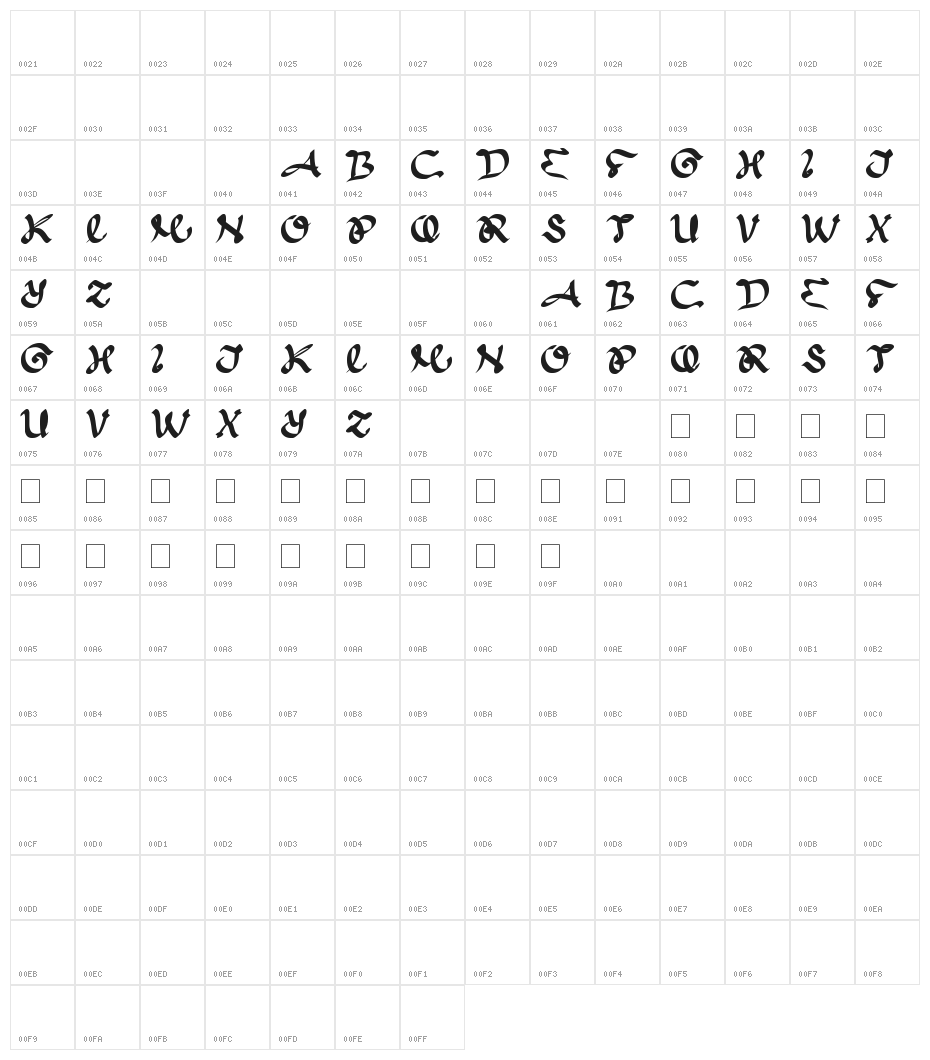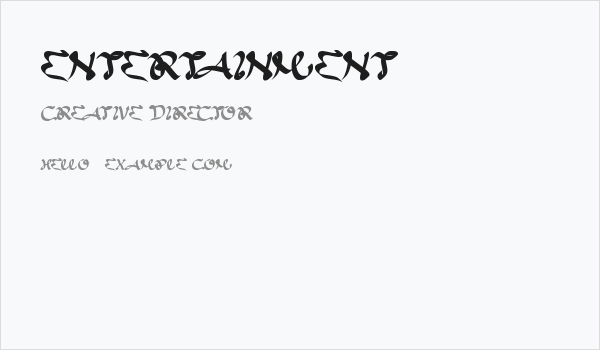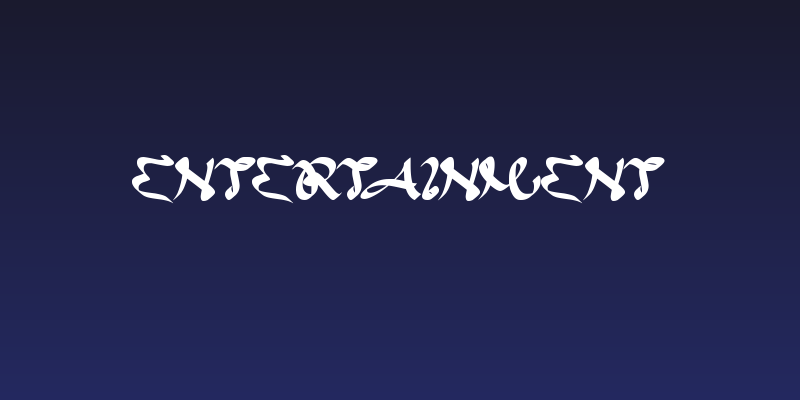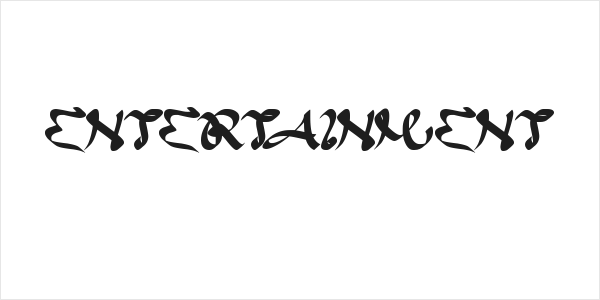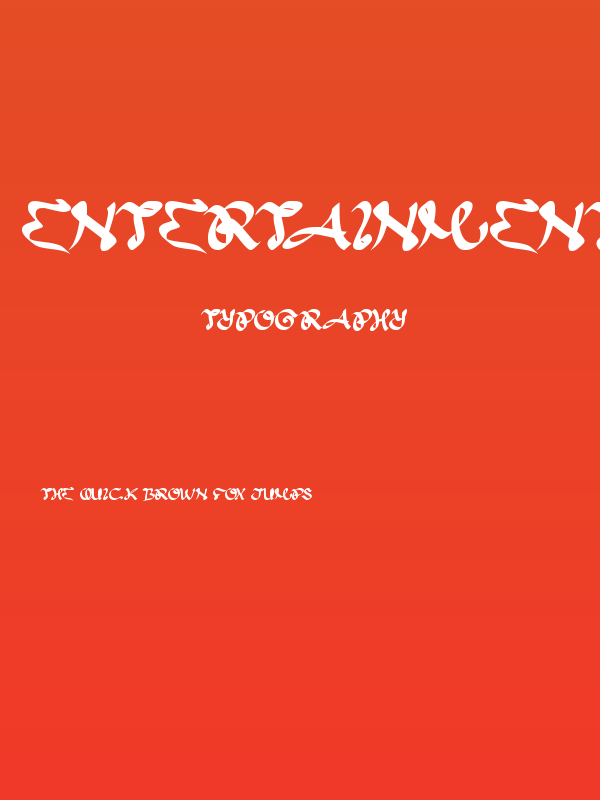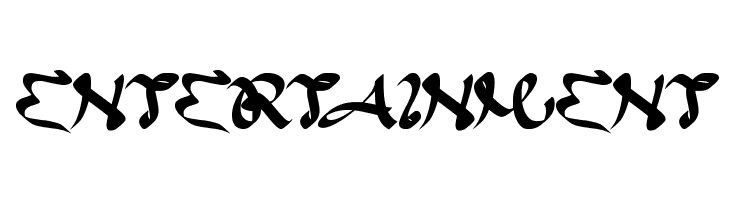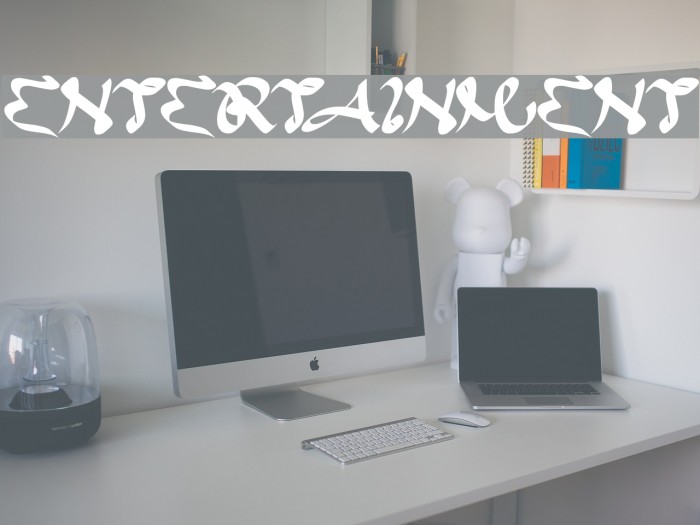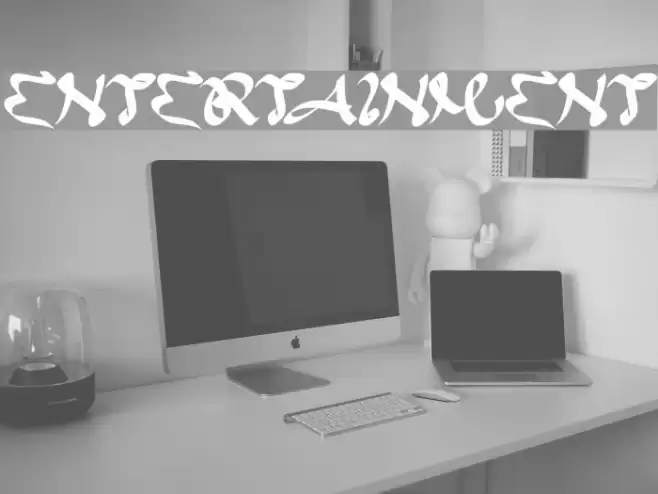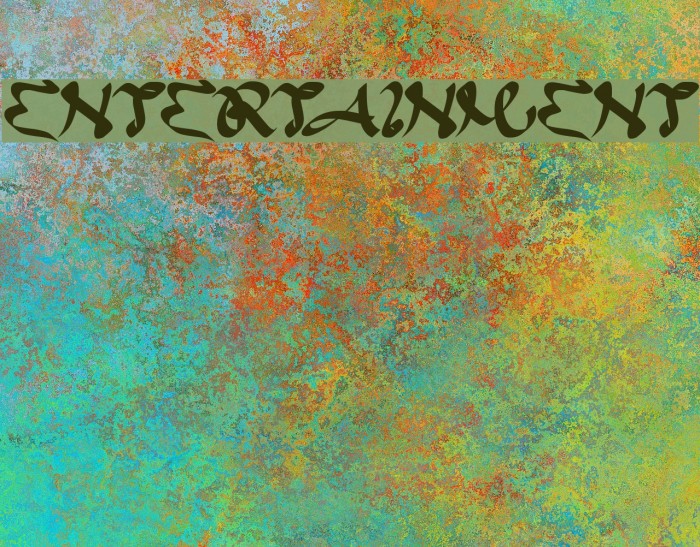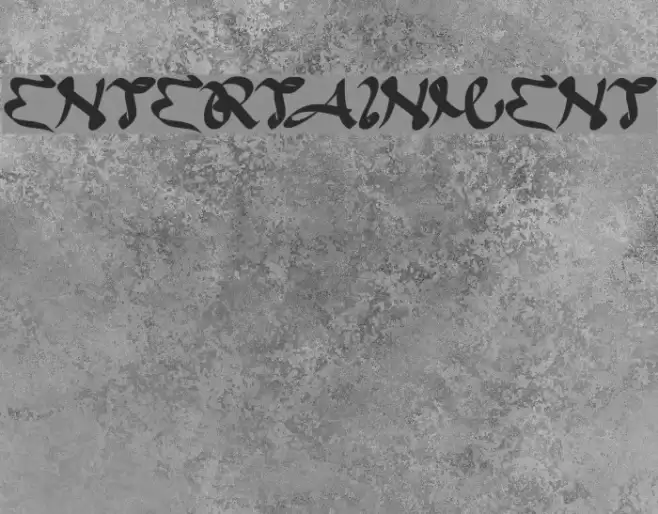
ENTERTAINMENT Font
✎ Calligraphic
ENTERTAINMENT Description
This font features a bold and dramatic style with intricate, swirling details that evoke a sense of elegance and flair. Each letter is crafted with a unique flourish, creating a visually striking appearance. The characters are interconnected with flowing strokes, giving it a cohesive and artistic look. This font is reminiscent of calligraphic or gothic styles, with a modern twist that makes it suitable for contemporary designs. Its boldness ensures that it stands out, making it ideal for eye-catching headlines or decorative purposes.
| Use Case | Headlines, Logos, Invitations |
| Proposed Projects | Ideal for use in branding, posters, invitations, and any project requiring a dramatic and artistic touch. |